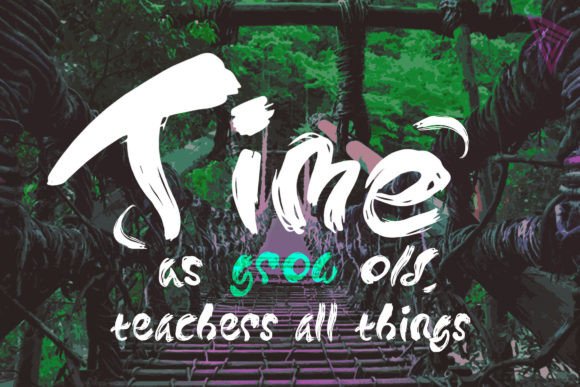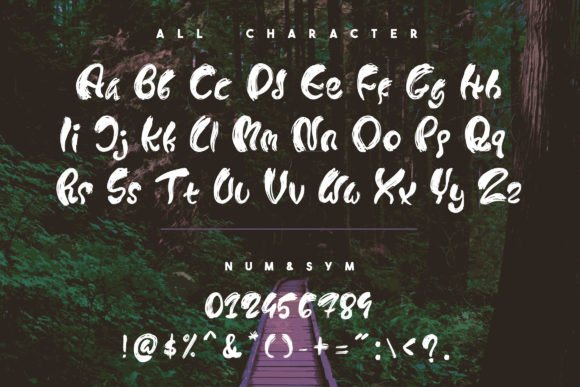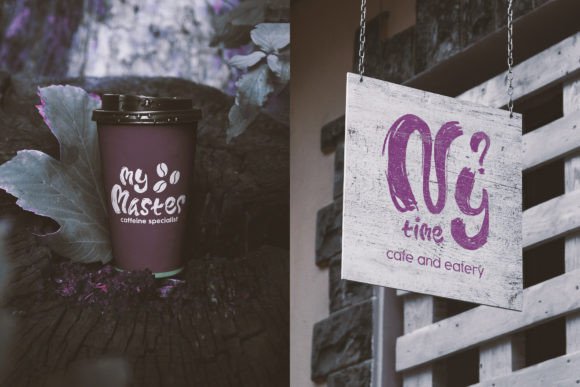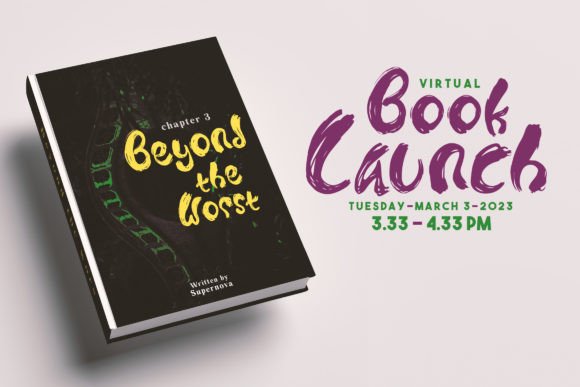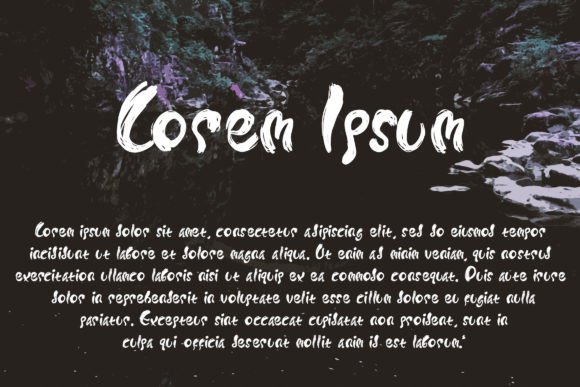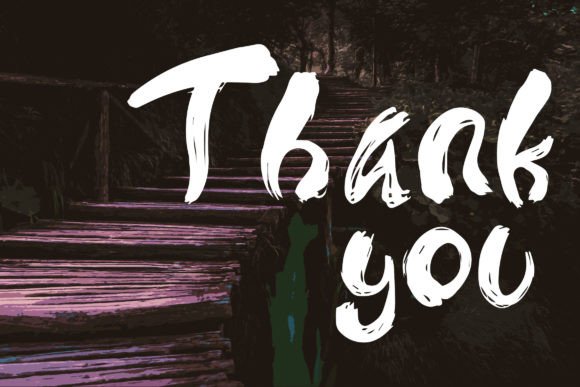
The Perfect Blend of Tradition and Modernity: Discover Bridge of Myth Font
As a designer, you know that sometimes the most creative moments come from unexpected places. Like the time you stumbled upon an old Japanese calligraphy book and were captivated by the expressive brushstrokes and elegant lines. That’s when the idea struck you – to create a font that combines the timeless beauty of traditional Japanese calligraphy with the modernity of contemporary design. And that’s exactly what you get with the Bridge of Myth Font.
This beautiful handwritten font is designed to add a unique touch to your typographical designs, making it perfect for highway and streetwear projects. With its thick and firm shape, yet dynamic feel, Bridge of Myth Font is an invaluable asset for any designer looking to create eye-catching branding, labels, clothing designs, movie titles, album covers, and logos.
Bridge of Myth Font Key Features
- Font Family: Bridge of Myth is a unique, hand-drawn font designed to evoke a sense of mysticism and wonder. It is available in multiple font styles, including regular, bold, italic, and bold italic.
- Character Set: Bridge of Myth includes a comprehensive character set, including uppercase and lowercase letters, numbers, punctuation marks, and a range of special characters, including accents and symbols.
- Unique Characteristics: Bridge of Myth features a unique, hand-drawn design with intricate details and flourishes, giving it a distinctive and eye-catching appearance.
Bridge of Myth Font Review
Overall, I’m quite impressed with the Bridge of Myth font. Here’s what I think works well: ✨
- Unique style: The font has a distinct, fantasy-inspired look that’s perfect for projects with a mythological or medieval theme.
- High-quality glyphs: The font includes a wide range of characters, including accents and punctuation, which are well-designed and consistent.
- Good legibility: Despite its ornate style, the font is still easy to read, even at smaller font sizes.
- Limited font weights: The font only comes in a few weights, which may not be suitable for all design projects.
- No italic or bold-italic styles: This might be a drawback for designers who need to use these styles in their work.
- Not suitable for body text: The font’s ornate style makes it better suited for titles and headings rather than body text.
Overall, I think the Bridge of Myth font is a great choice for designers who need a unique, fantasy-inspired font for their projects. While it may have some limitations, its unique style and high-quality glyphs make it a valuable addition to any design library.
The Bridge of Myth Font is ideal for creating fantasy-themed designs, such as book covers, posters, and social media graphics.
Use the font in combination with other fantasy-themed elements, such as dragons, unicorns, and medieval-inspired graphics.
Experiment with different font sizes, colors, and styles to achieve a unique and eye-catching design.